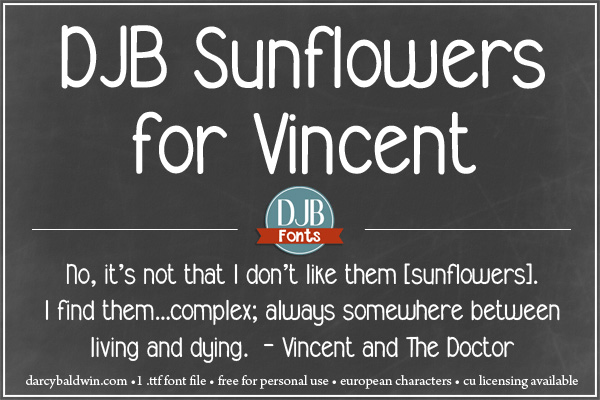
An easy to read font that contains European language characters. This font is free for personal use only. If you'd like to purchase it for commercial use, please purchase a license at: http://darcybaldwin.com/commercial-use/ https://www.facebook.com/DarcyBaldwinFontography |